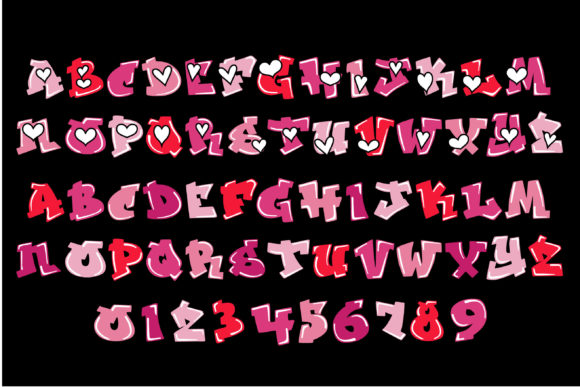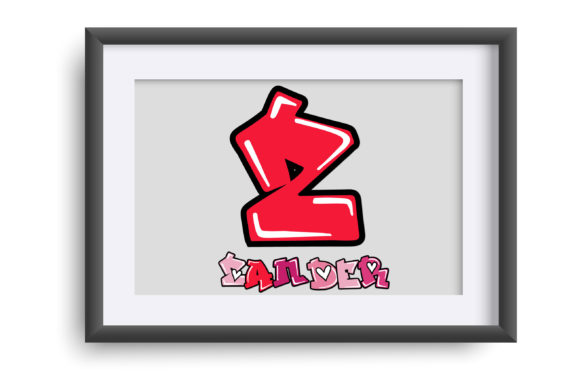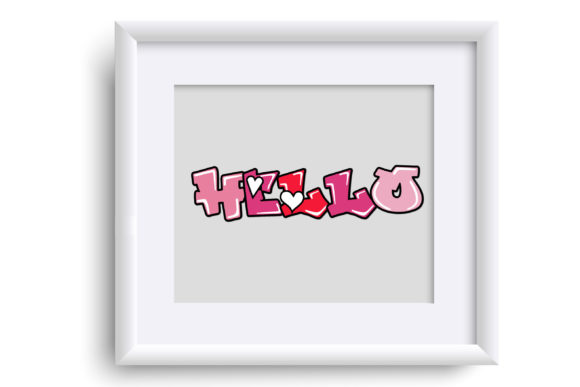
Introduction to Hip Heart Font
This creative full-color hip hop font comes in graffiti-style lettering and hearts in a pink/red color palette.
Key Features of Hip Heart Font
Why Choose Hip Heart Font?
Hip Heart Font offers exceptional quality and versatility, making it a valuable addition to your design toolkit. Whether you’re creating for personal projects or commercial use, Hip Heart Font delivers professional results.